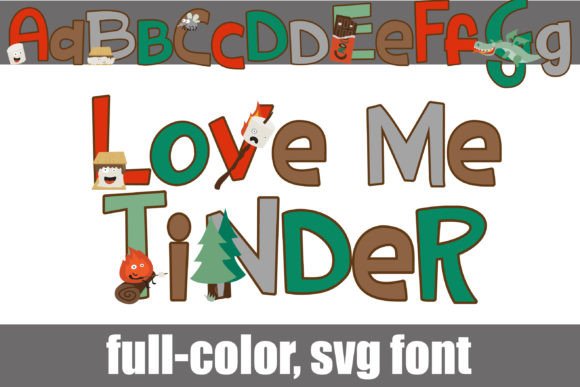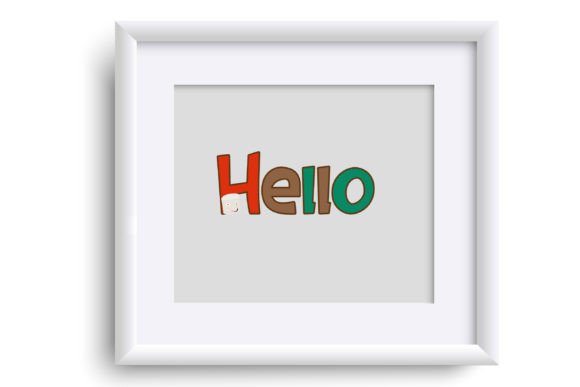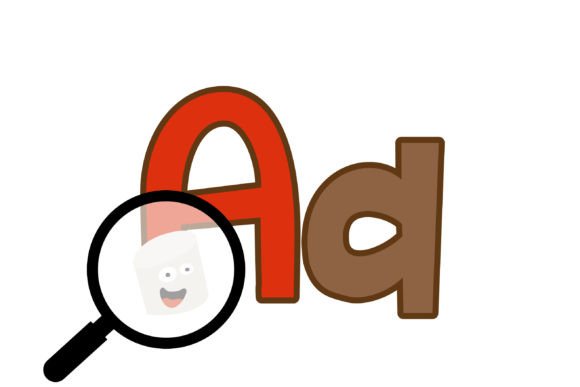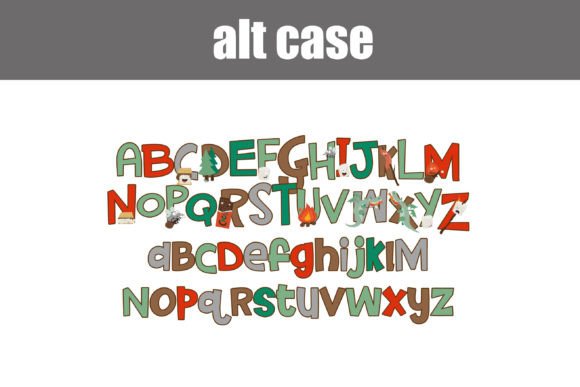
Love Me Tinder Font
About the Love Me Tinder Font
The Love Me Tinder Font offers a perfect balance of form and function for your design needs. res a blocky, sans serif font with camping elements. There is an alt case w/ additional colors you can access through your system or Silhouette’s glyph map. This font works best for titles, displays, posters and more. Please note color fonts will show as black in non compatible programs. This font type is compatible with Silhouette Studio.